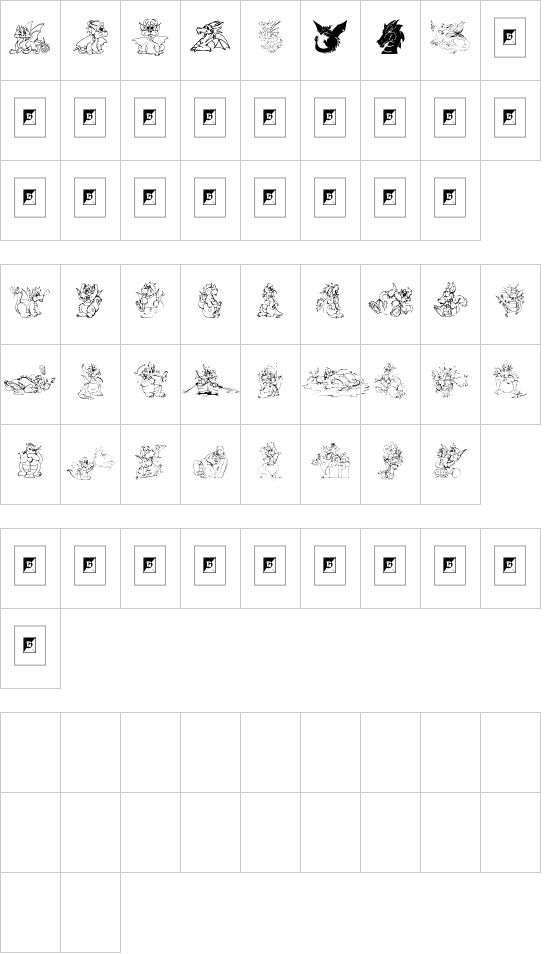
Delightful Lil Dragons is an animal-themed dingbat font filled with charming little dragon and creature illustrations. Each glyph is a finished fantasy drawing with a cute, friendly touch, so every key press drops a ready-made little beast into your layout.
It works for kids' books, fantasy game art, sticker sheets, and themed party decorations where charming creature art fits. Delightful Lil Dragons is free to download as a TrueType file, and the preview lets you type different letters to see which dragon lands on each key before placing the artwork into your design.